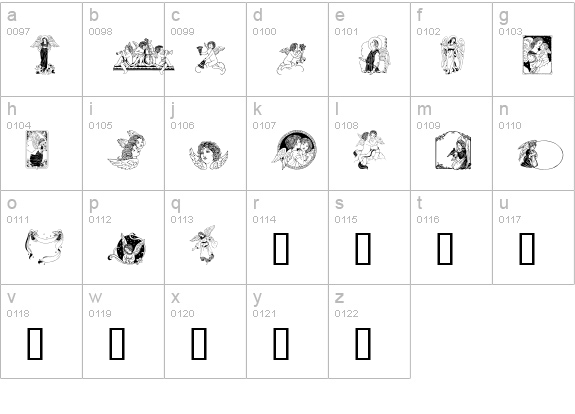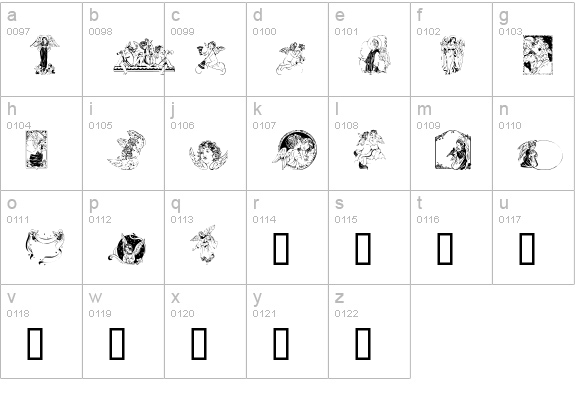
GE Angels I Font Details
GE Angels I font is a stunning and elegant typeface that exudes a sense of grace and sophistication. With its delicate curves and intricate details, this font is perfect for adding a touch of beauty to any design project. Whether you're creating wedding invitations, branding materials, or decorative artwork, GE Angels I font will elevate your work to new heights. What sets GE Angels I font apart is not only its exquisite design but also its accessibility. This font is freely available to download at FontsMarket.com, making it easy for designers of all levels to incorporate it into their projects. With GE Angels I font, you can bring a touch of ethereal beauty to your designs without any cost or hassle. Upgrade your typography today with the timeless elegance of GE Angels I font.